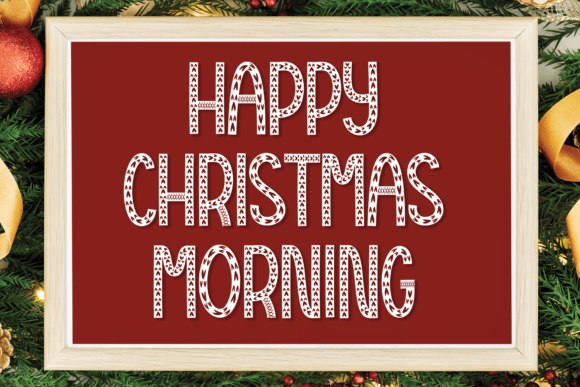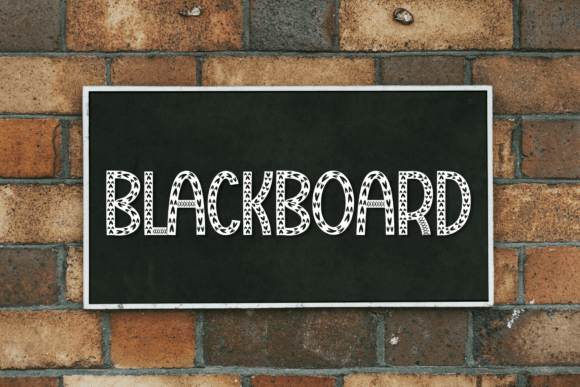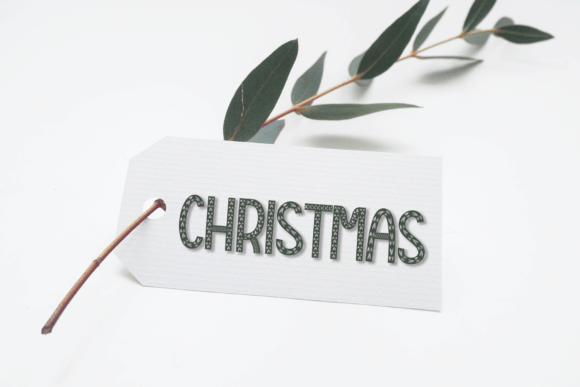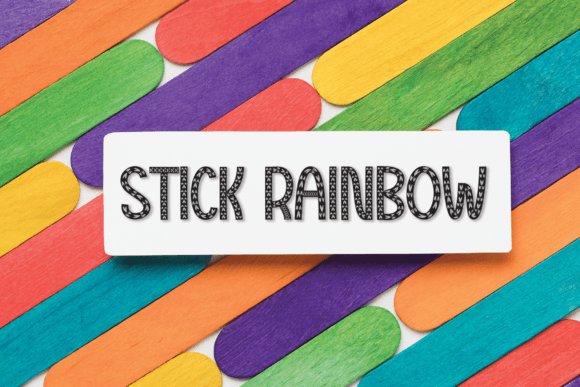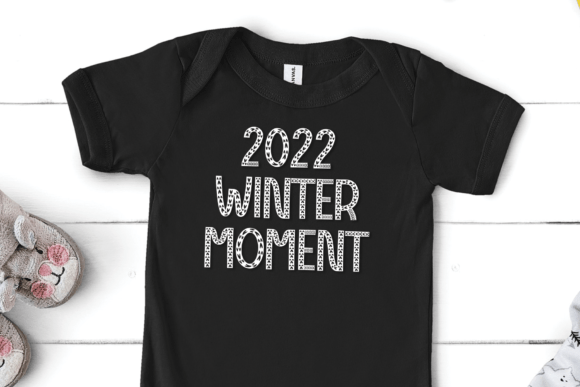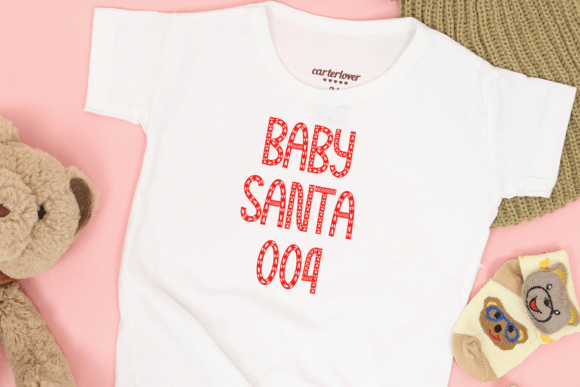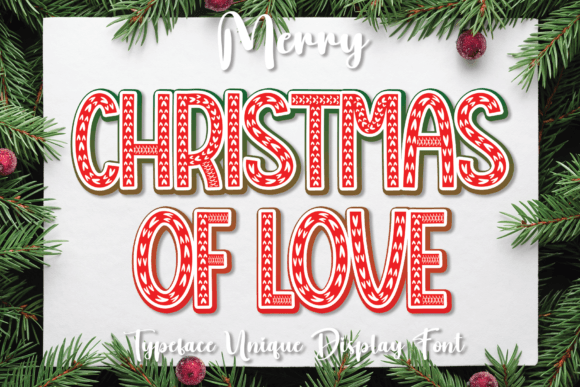
Christmas of Love Font: A Festive and Unique Decorative Font for Your Holiday Projects
The holiday season is upon us, and with it comes the need for festive and fun designs that capture the spirit of Christmas. If you’re a designer, crafter, or DIY enthusiast looking for a unique and eye-catching font to add to your holiday projects, look no further than the Christmas of Love font. This cool and decorative font is sure to bring a touch of magic to your designs, and in this article, we’ll take a closer look at what makes it so special.
What is Christmas of Love Font?
Christmas of Love is a decorative font that is perfect for adding a touch of holiday cheer to your projects. With its unique and festive design, this font is sure to stand out from the crowd and make your designs shine. Whether you’re creating holiday cards, gift tags, or social media graphics, Christmas of Love is the perfect choice.
Key Features of Christmas of Love Font
So, what makes Christmas of Love font so special? Here are just a few of its key features:
- Unique and Festive Design: Christmas of Love font features a unique and festive design that is sure to capture the spirit of the holiday season.
- Decorative and Eye-Catching: With its decorative and eye-catching design, this font is perfect for adding a touch of holiday cheer to your projects.
- Easy to Use: Christmas of Love font is easy to use and can be added to your projects with confidence.
- High-Quality Design: This font features a high-quality design that is sure to make your projects stand out.
Benefits of Using Christmas of Love Font
So, why choose Christmas of Love font for your holiday projects? Here are just a few benefits:
- Adds a Touch of Holiday Cheer: This font adds a touch of holiday cheer to your projects, making them perfect for the holiday season.
- Unique and Eye-Catching: Christmas of Love font is unique and eye-catching, making your projects stand out from the crowd.
- Easy to Use: This font is easy to use, making it perfect for designers and crafters of all skill levels.
- High-Quality Design: The high-quality design of this font ensures that your projects look professional and polished.
Christmas of Love font is perfect for designers and crafters who want to add a touch of holiday cheer to their projects. Whether you’re creating holiday cards, gift tags, or social media graphics, this font is sure to make your designs shine. With its unique and festive design, Christmas of Love font is the perfect choice for:
- Holiday Cards: Add a touch of holiday cheer to your cards with this festive font.
- Gift Tags: Make your gift tags stand out with this unique and eye-catching font.
- Social Media Graphics: Add a touch of holiday cheer to your social media graphics with this festive font.
- DIY Projects: Use this font to add a personal touch to your DIY projects, such as holiday decorations and gifts.
In conclusion, Christmas of Love font is a cool and unique decorative font that is perfect for adding a touch of holiday cheer to your projects. With its festive and eye-catching design, this font is sure to make your designs shine. Whether you’re a designer, crafter, or DIY enthusiast, Christmas of Love font is the perfect choice for your holiday projects. So why wait? Download Christmas of Love font today and start creating your own festive and fun designs!
So, add Christmas of Love font confidently to your projects and enjoy the results! This font is sure to bring a touch of magic to your designs and make them stand out from the crowd.